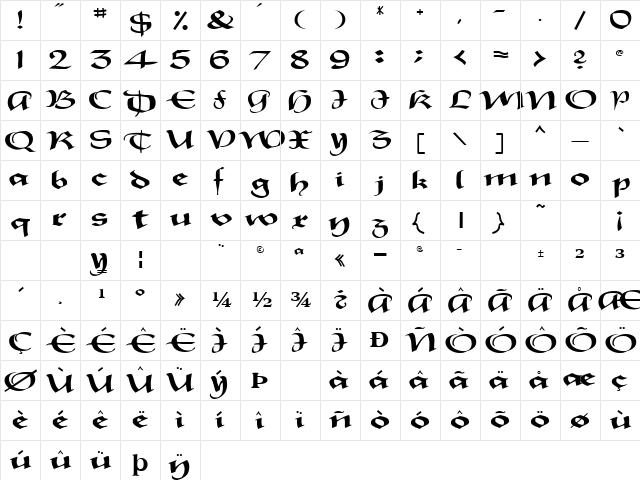
Sarrazin Regular
Design Context for Sarrazin Typeface
Sarrazin is a composed and adaptable typeface that performs quietly and consistently across a wide range of design contexts.